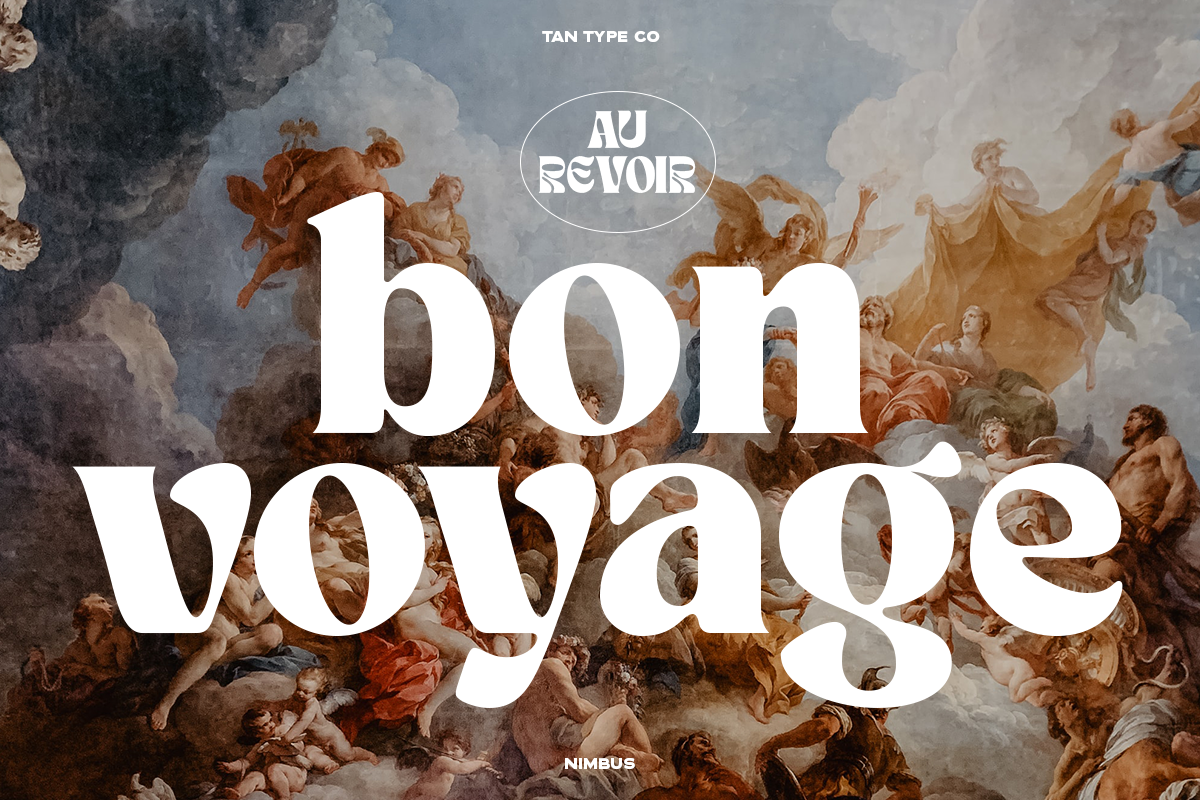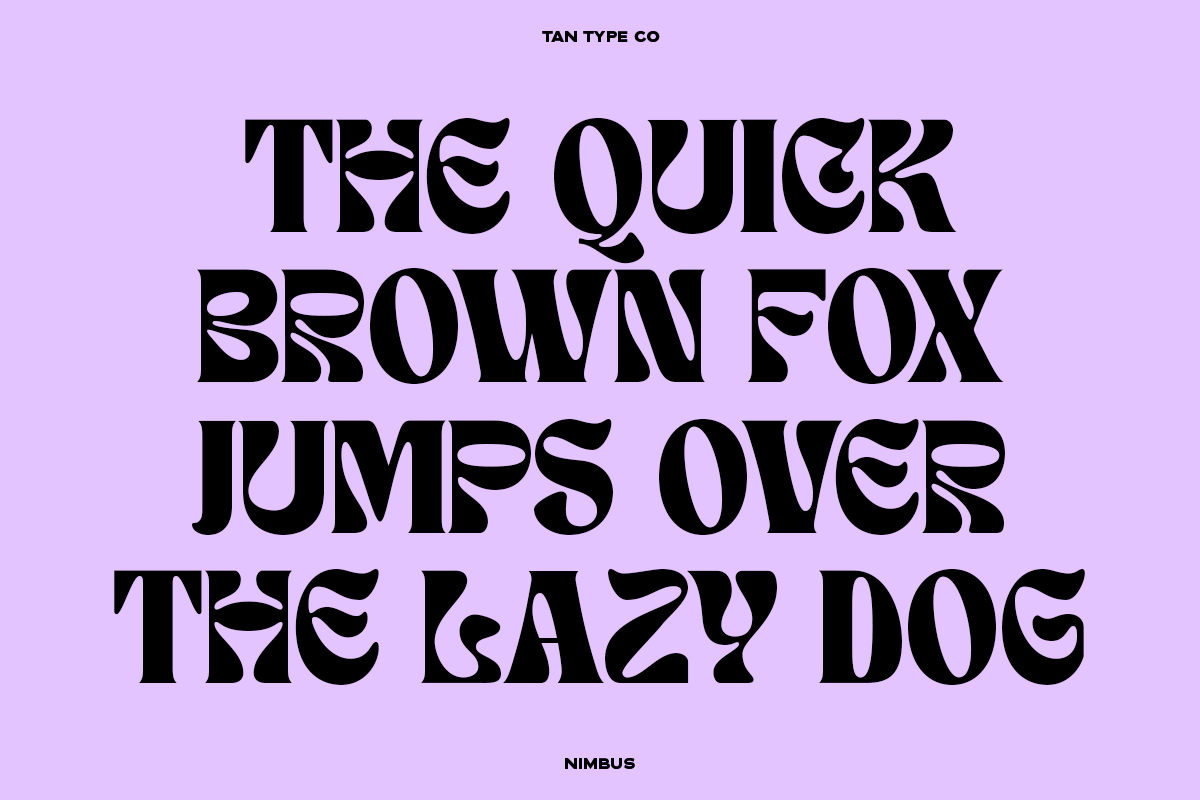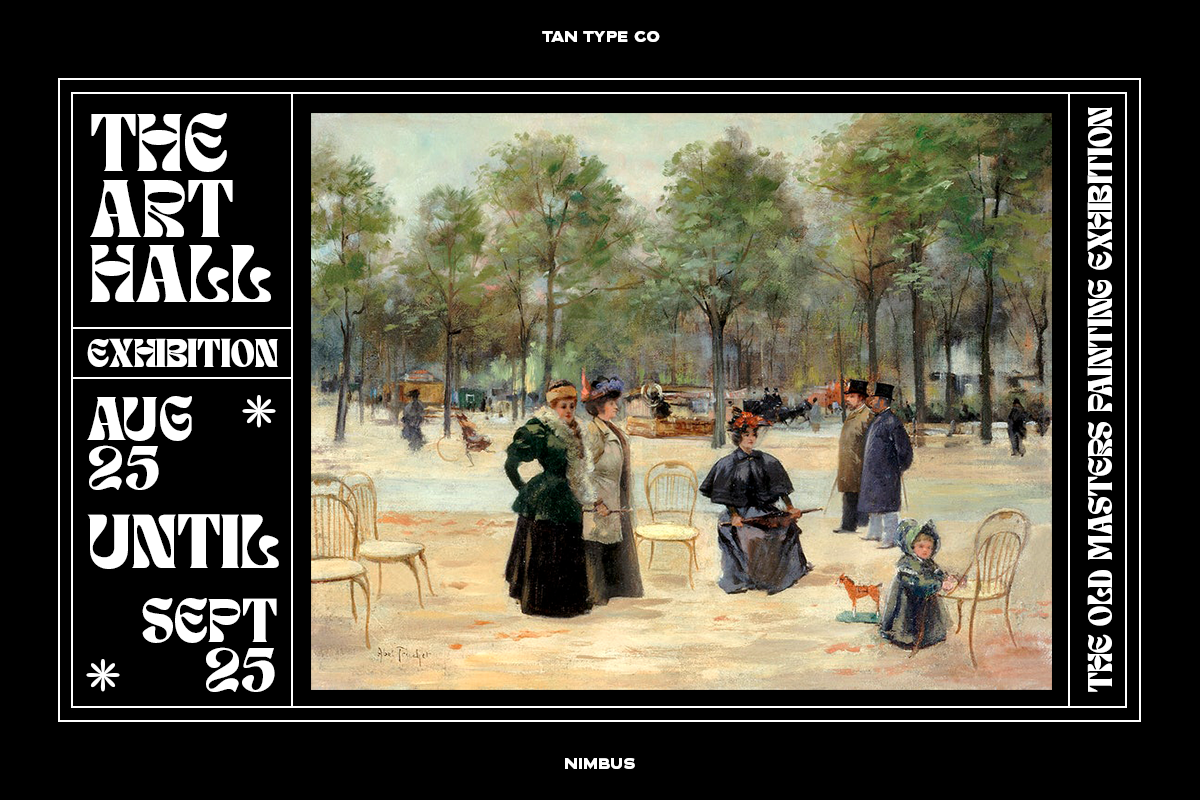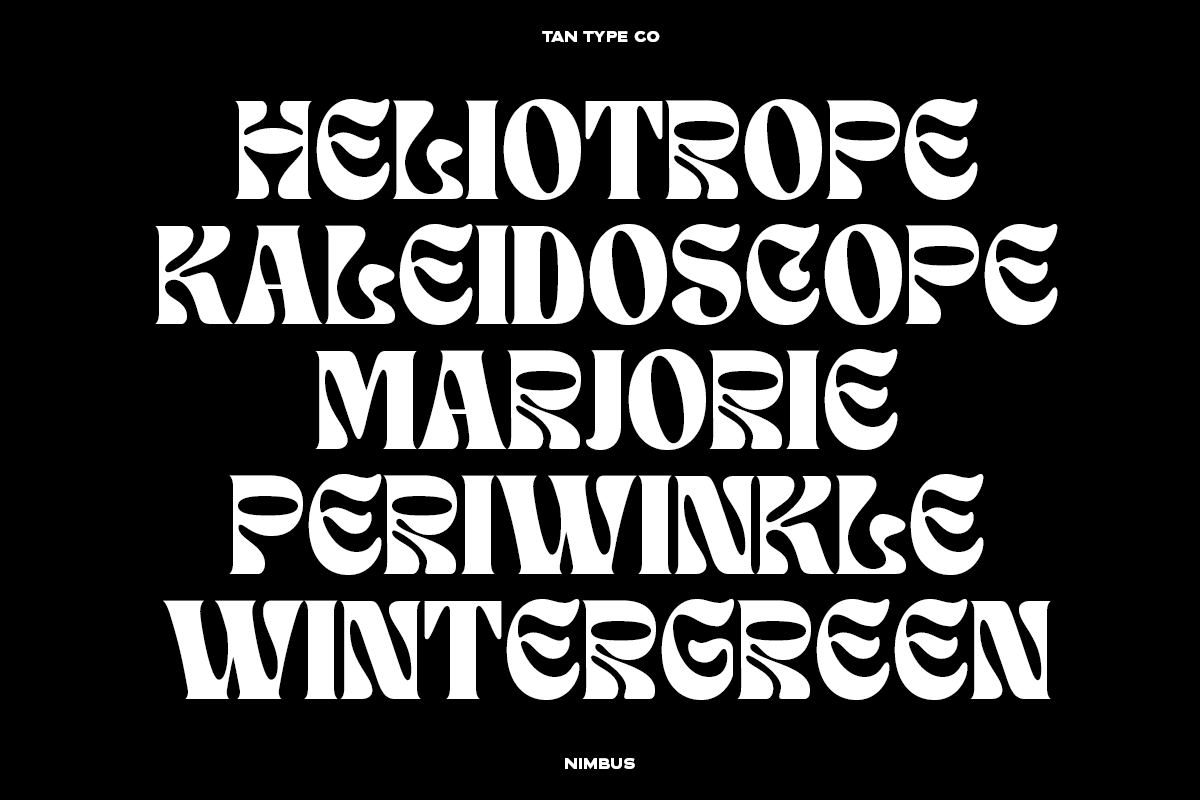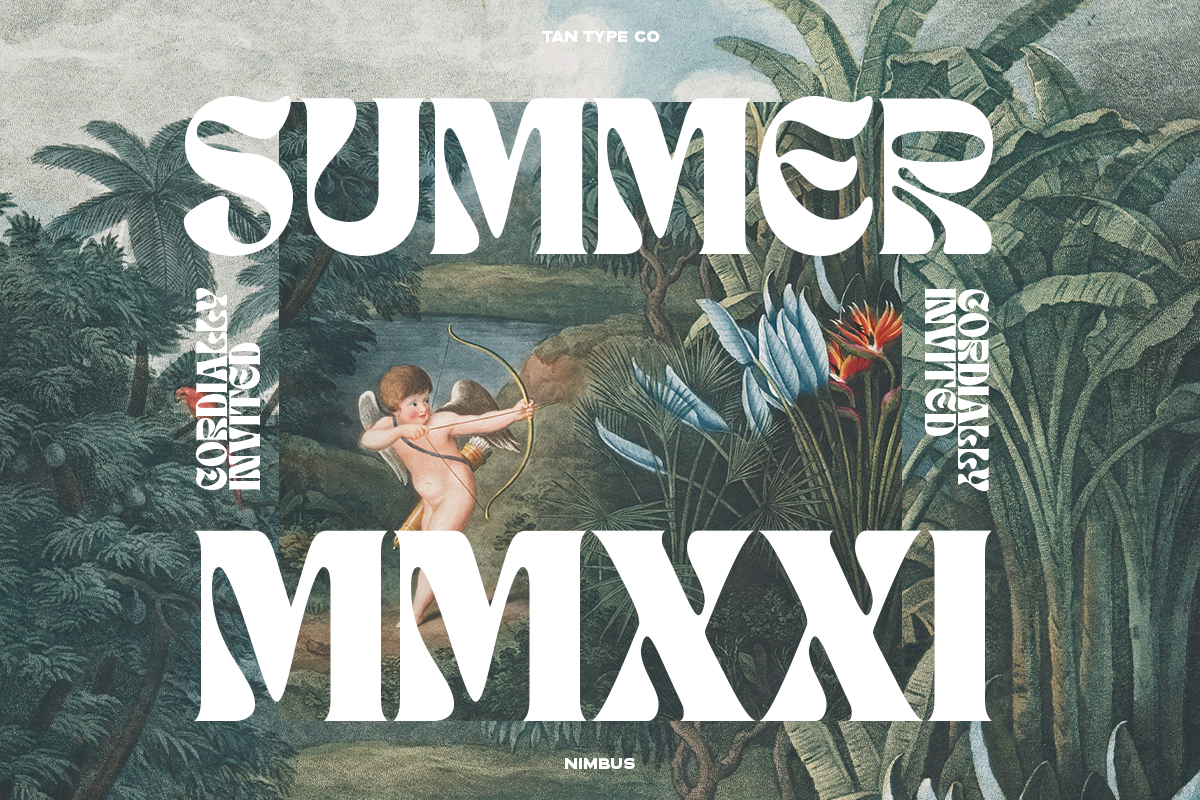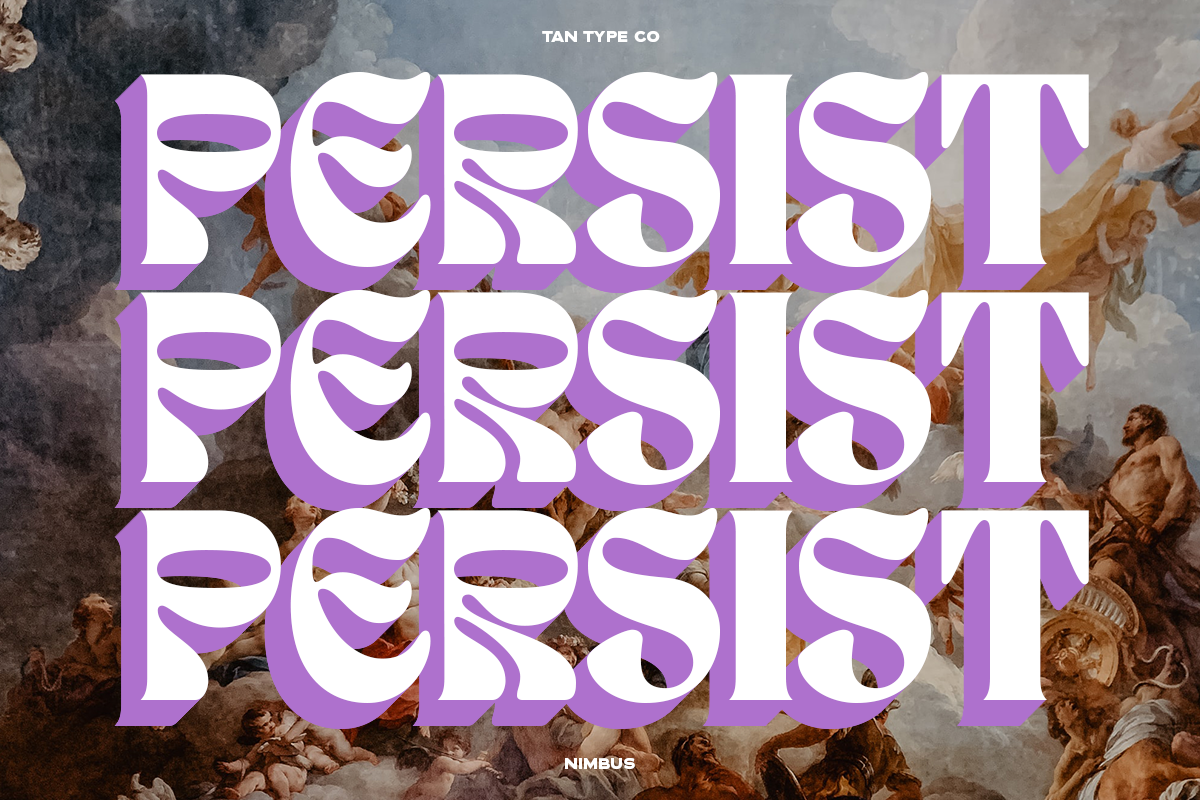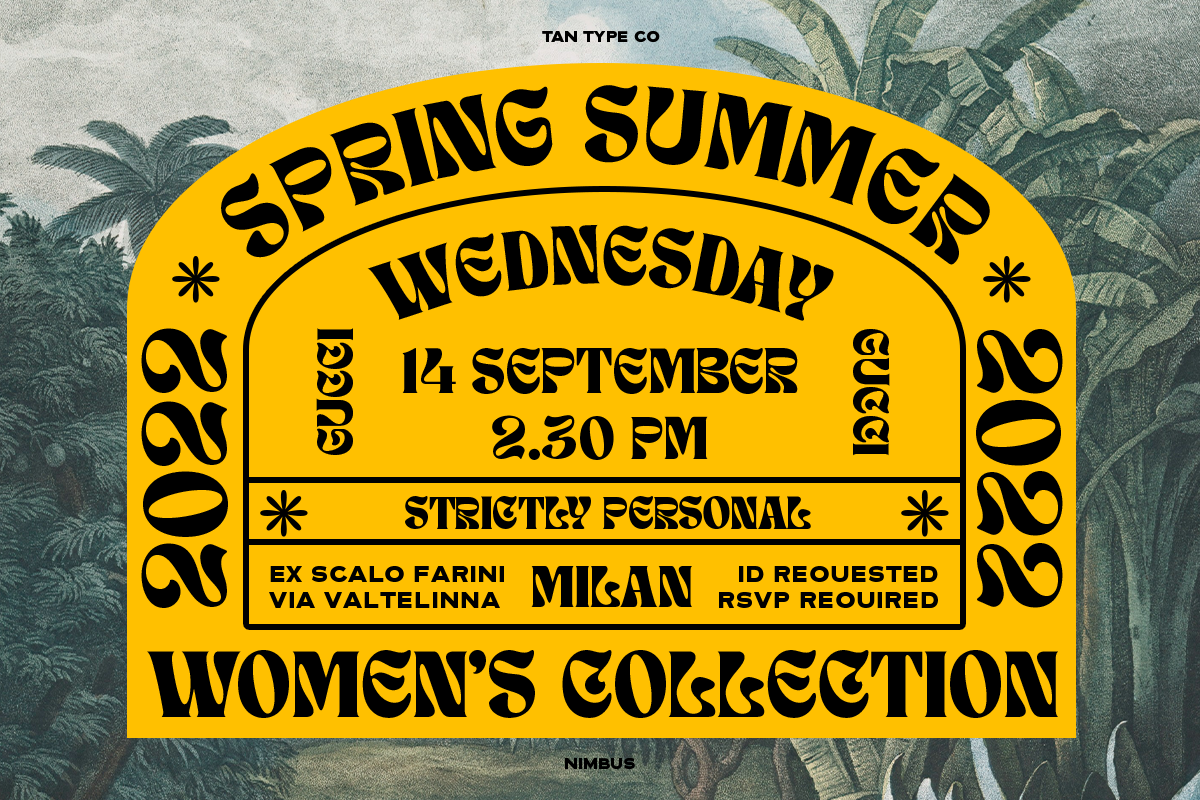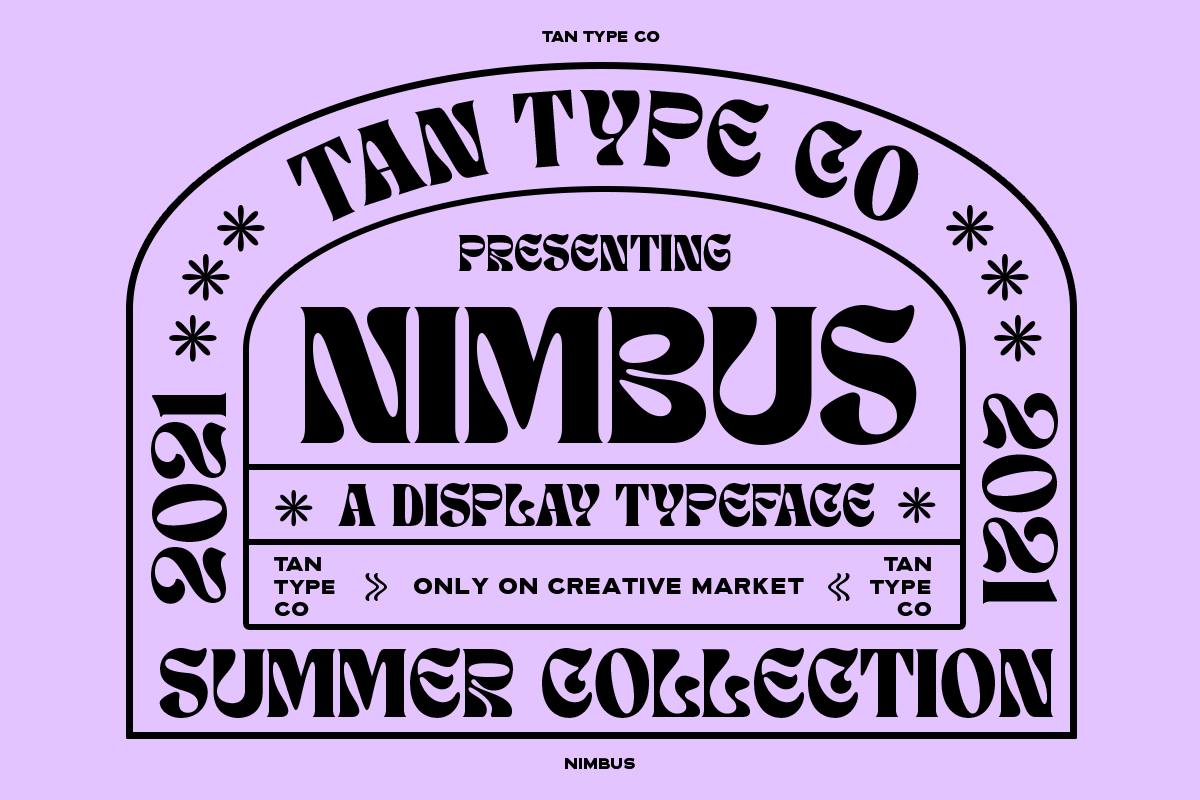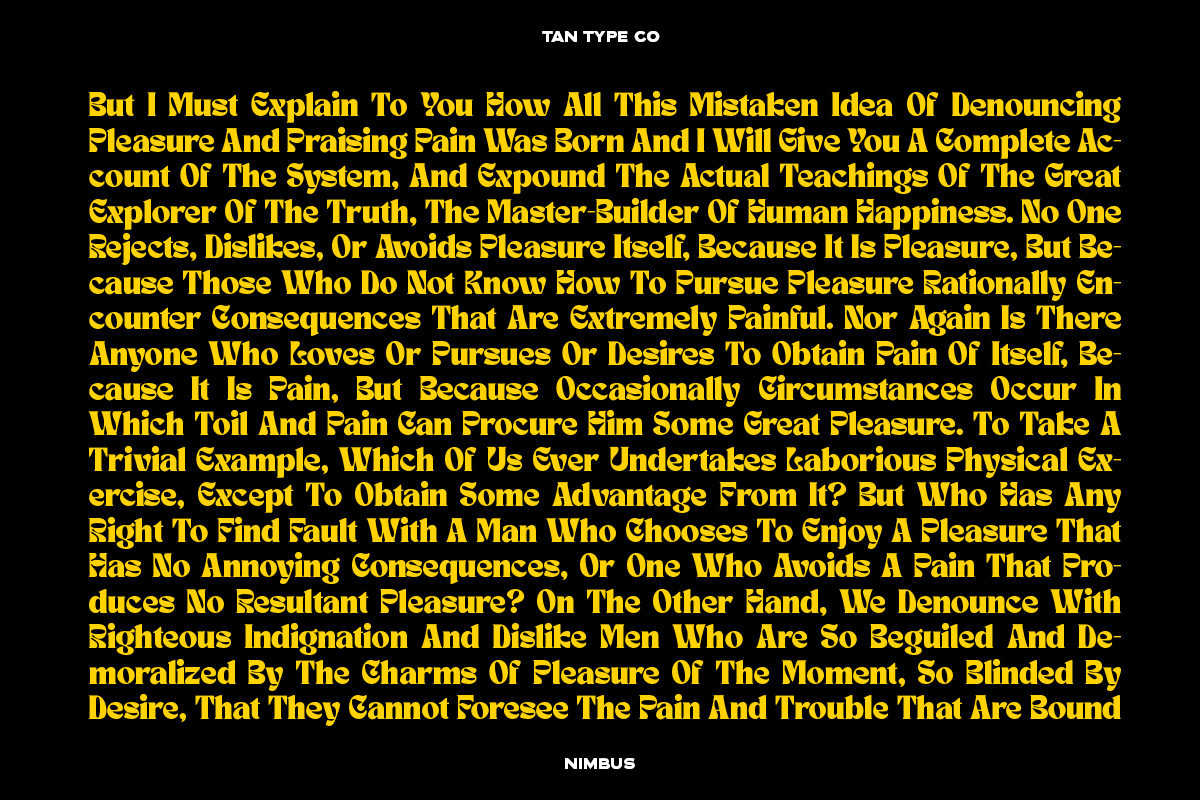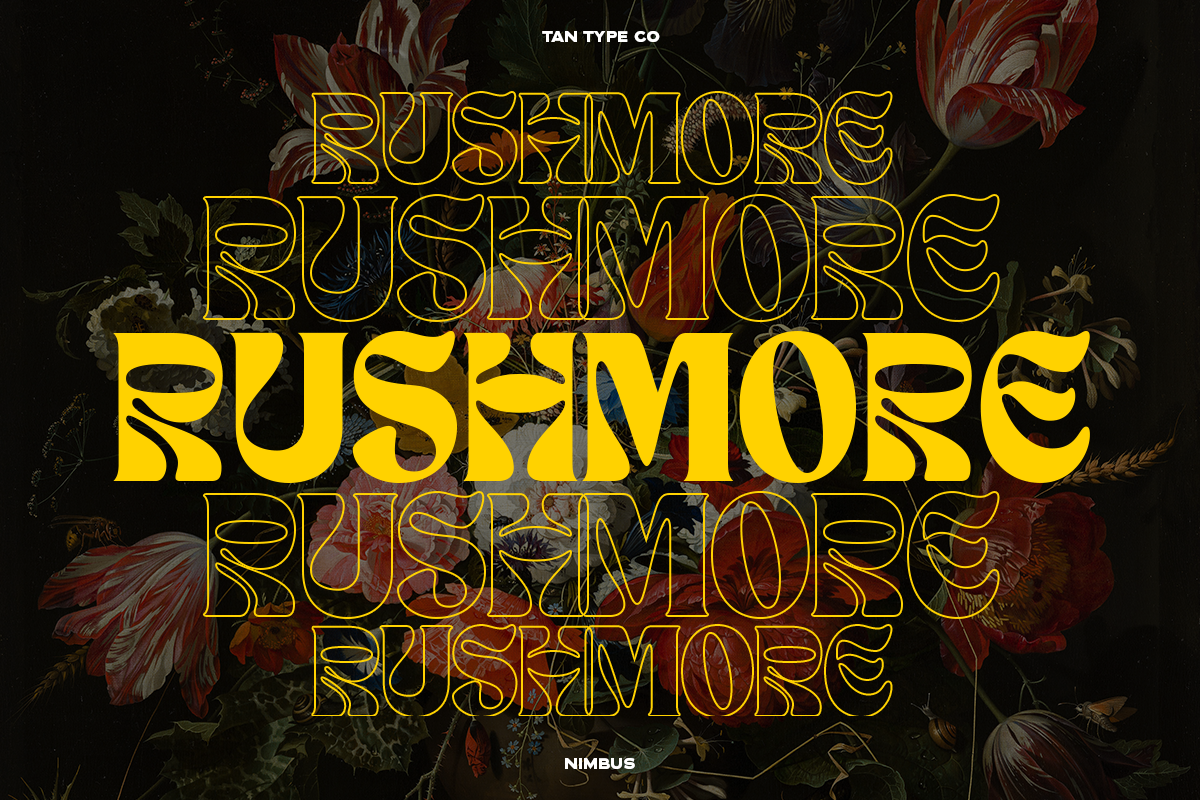
NIMBUS is a bold, expressive display typeface with retro-futuristic energy and high-impact curves. Its chunky letterforms and psychedelic edge make it perfect for statement branding, posters, music covers, or any design that needs a loud and funky personality. Nimbus channels 70s flair with a modern twist — a cloudburst of typographic drama.